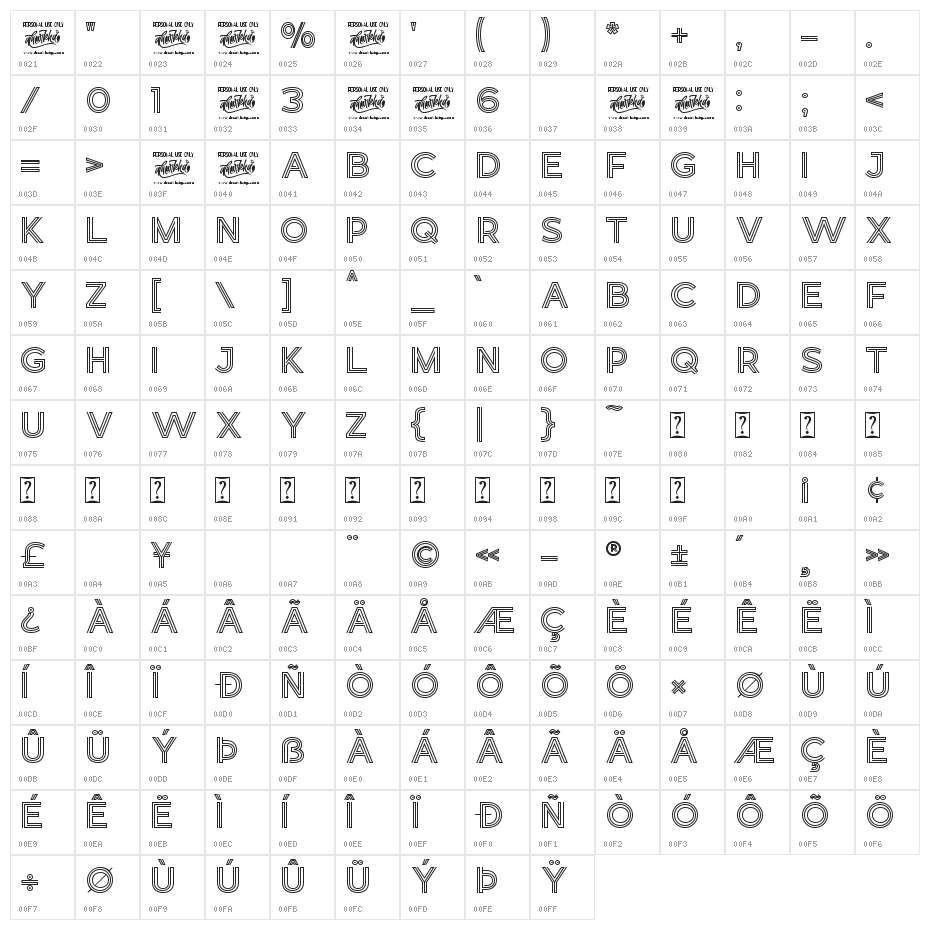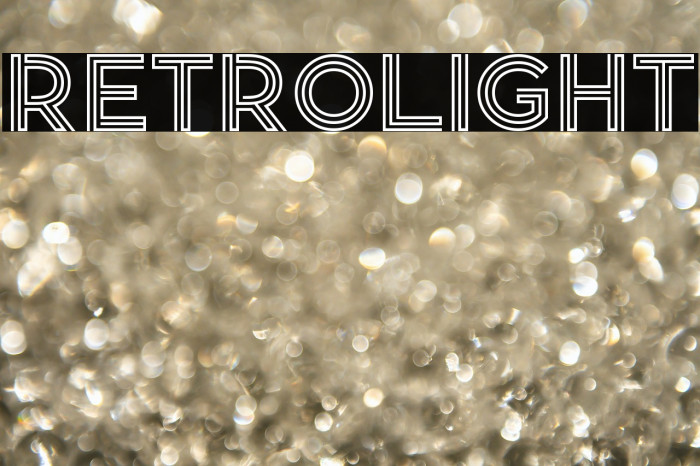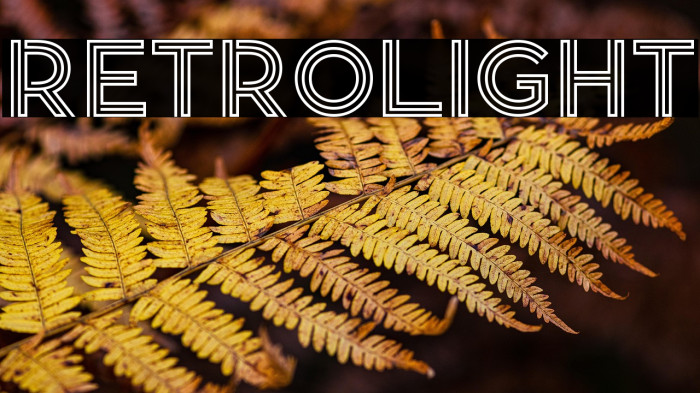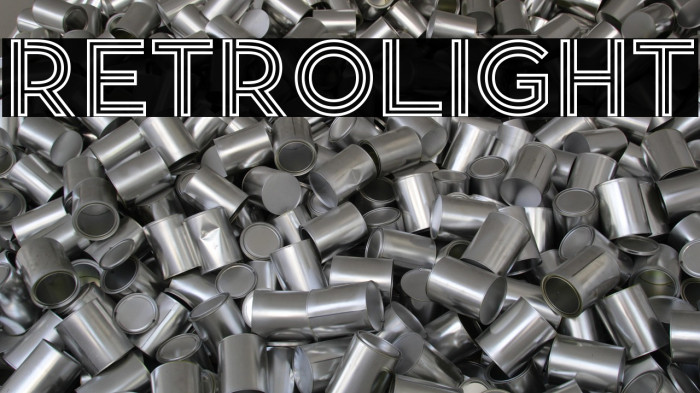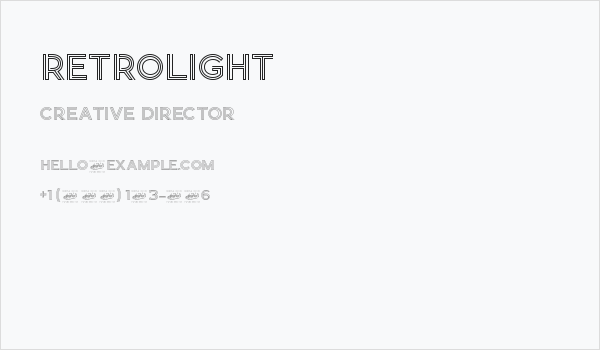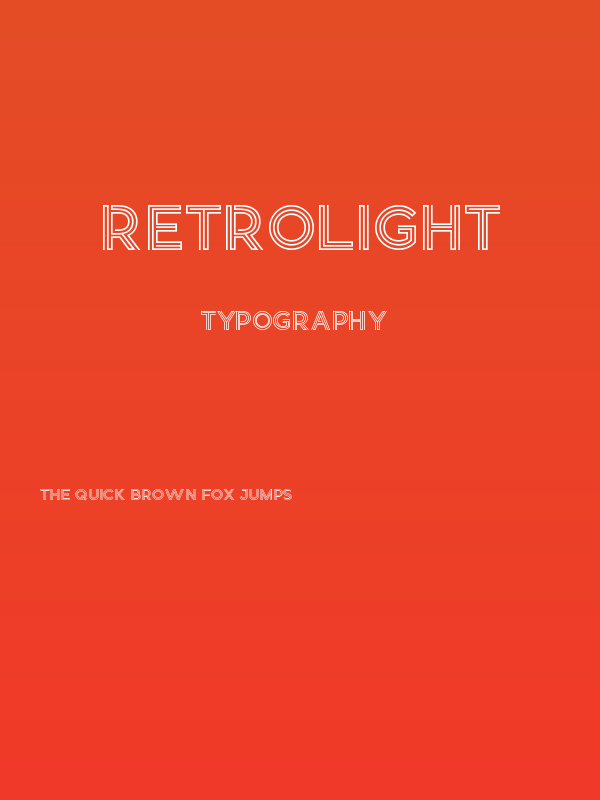
Retrolight Font
Retrolight Description
This font features a retro-inspired design with a distinct geometric structure. The uppercase and lowercase letters are characterized by clean, parallel lines that create a sense of depth and dimension. The numbers and special characters maintain this style, offering a cohesive look across all glyphs. The font's open and airy feel is achieved through its outlined form, making it ideal for designs that require a vintage yet modern aesthetic. Its unique style is both eye-catching and versatile, suitable for a variety of creative projects.
| Overall Style | Vintage |
| Proposed Projects | Ideal for vintage-themed posters, branding, logos, and editorial design. |